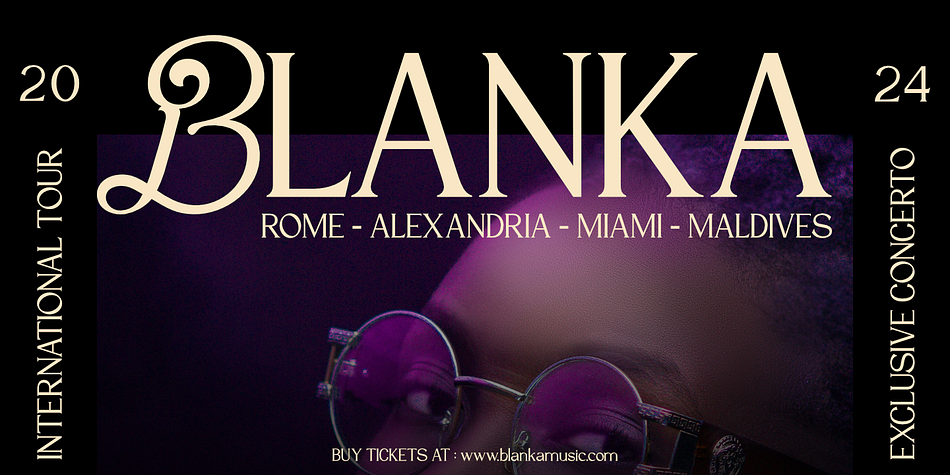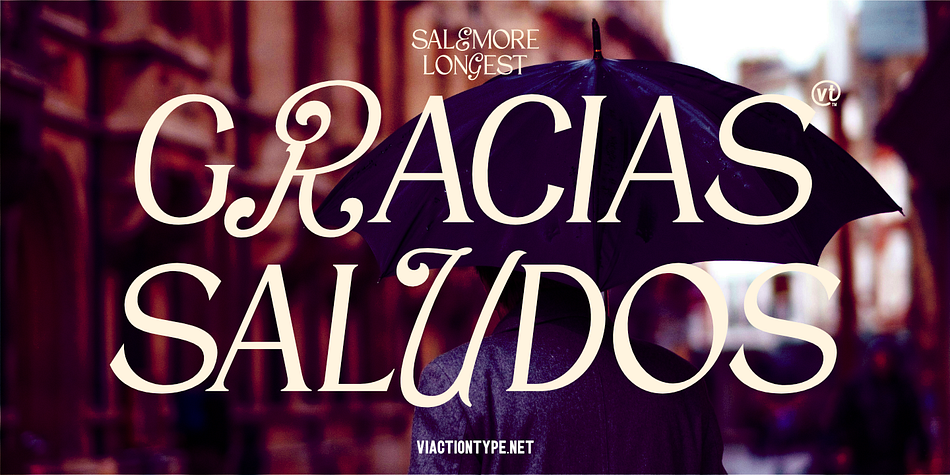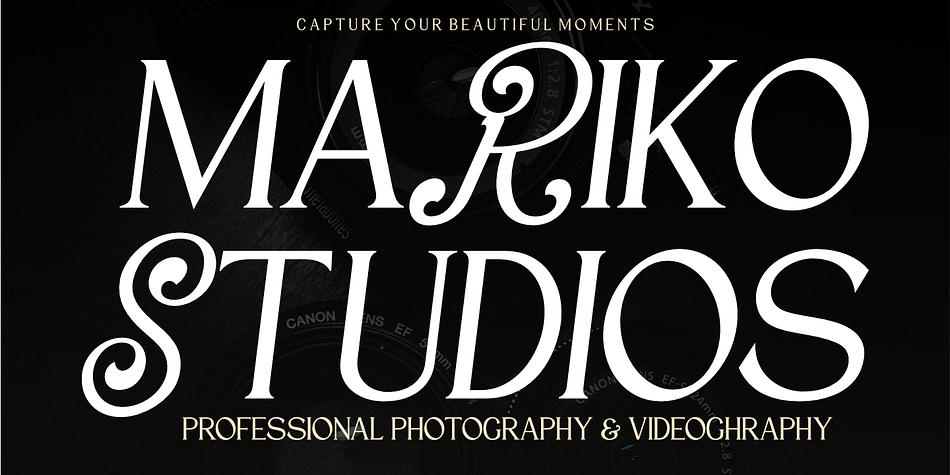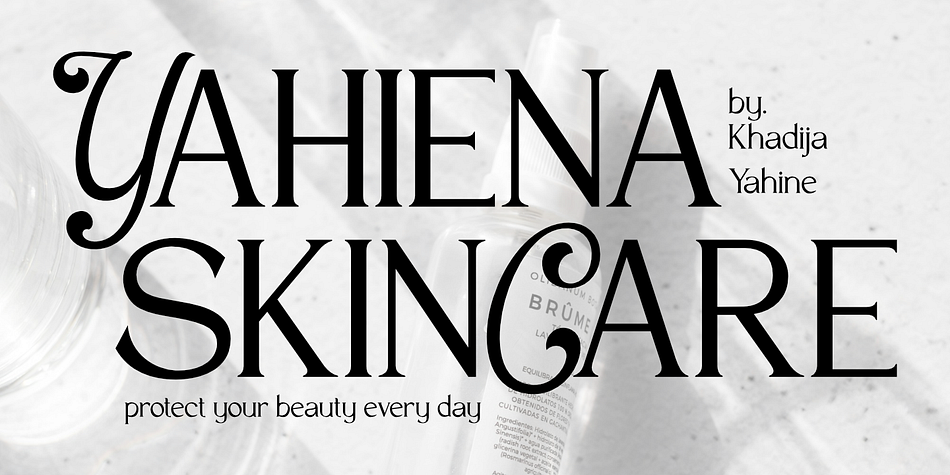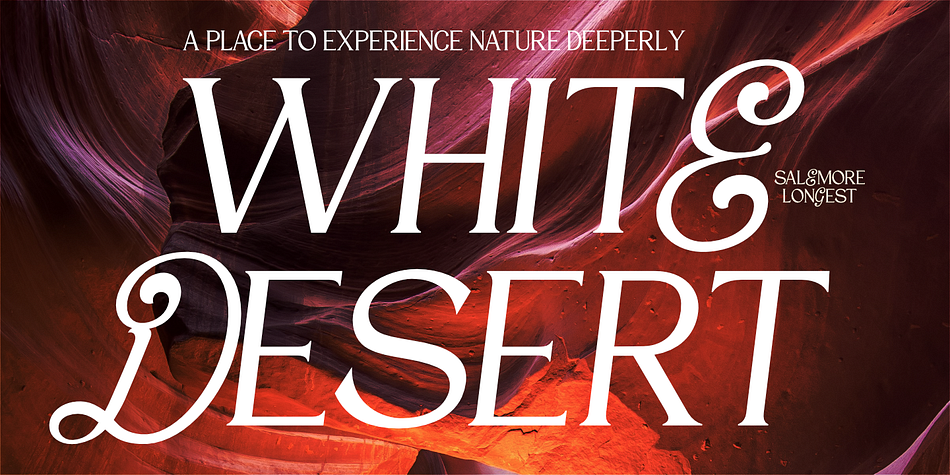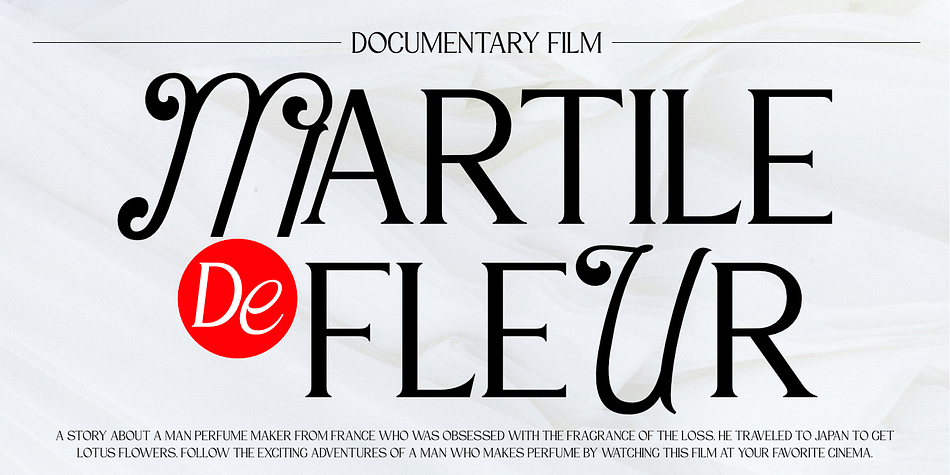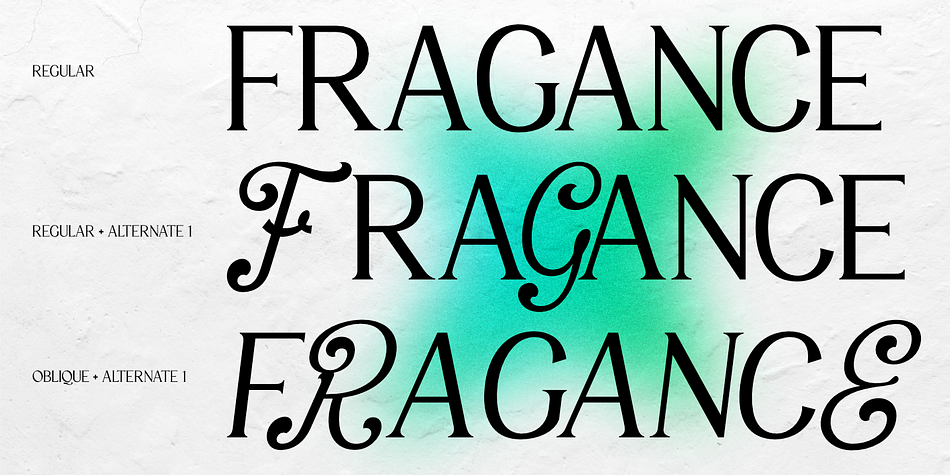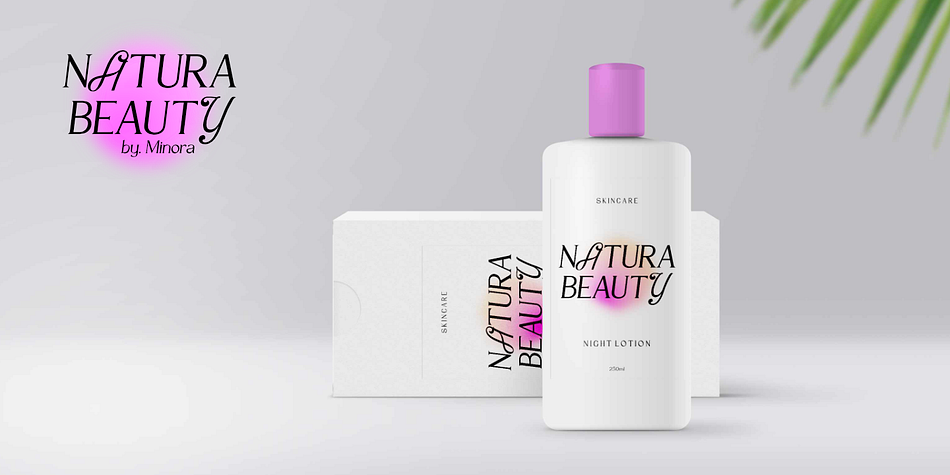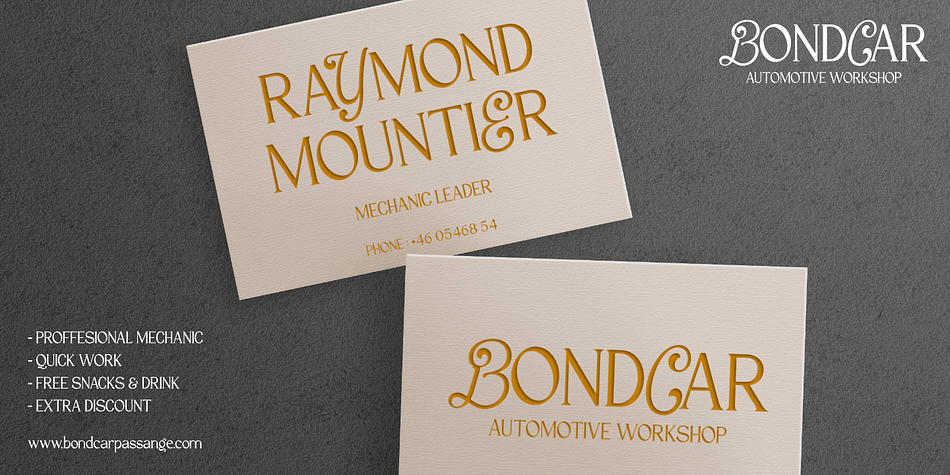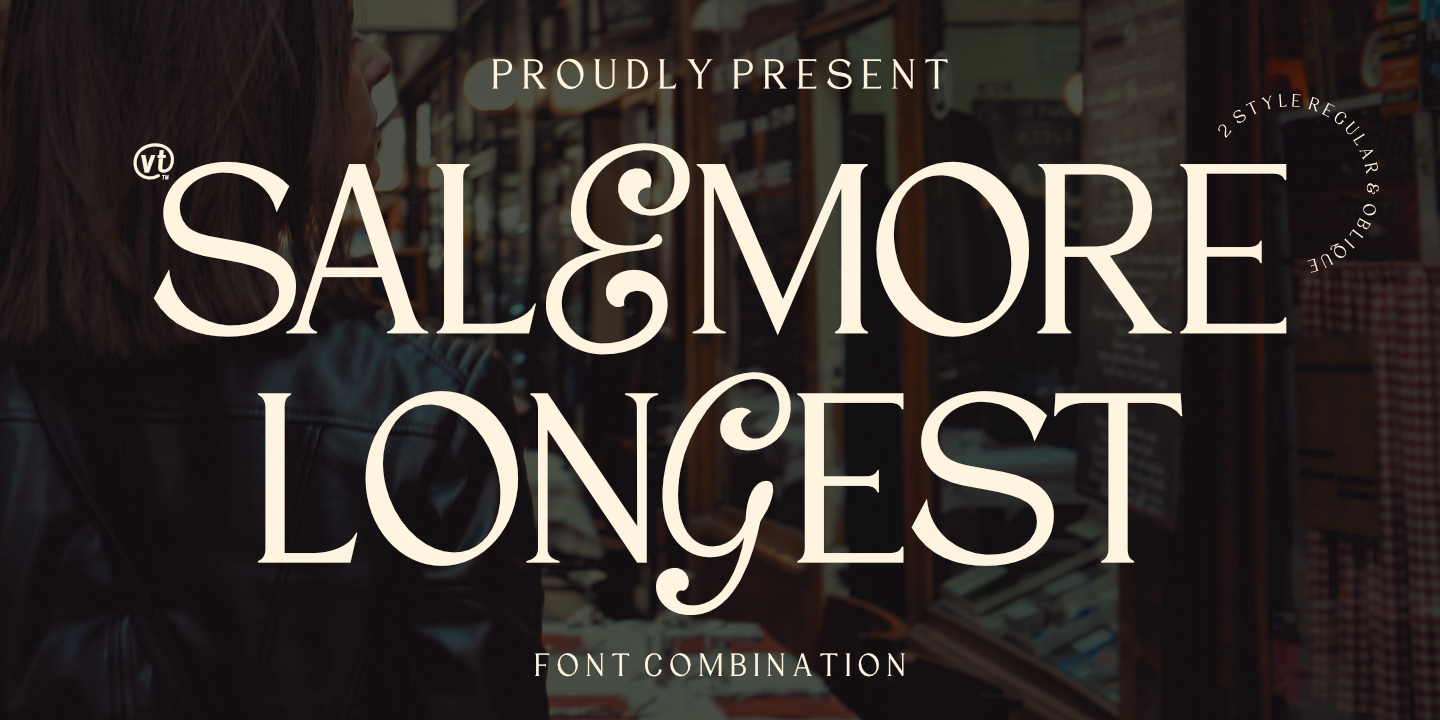
VT Salemore Longest
Designed by Lukman Hdayat, VT Salemore Longest is a serif font family. This typeface has two styles and was published by Viactiontype Studio.
Introducing Salemore Longest Font Combination: Where Elegance Meets Femininity
Elevate your design projects with the enchanting Salemore Longest Font Combination. Crafted meticulously to blend the timeless sophistication of serif with the graceful curves of script, this font duo embodies softness and femininity at its finest.
The Salemore Longest Serif font exudes a sense of refinement with its clean lines and subtle serifs, adding a touch of elegance and structure to your typography. On the other hand, the Salemore Longest Script font brings a delicate charm with its flowing strokes and graceful letterforms, infusing your designs with a distinctly feminine allure.
Whether you’re creating wedding invitations, branding materials, or social media graphics, the Salemore Longest Font Combination offers versatility and beauty to enhance any project. Its seamless integration of serif and script elements allows for endless creative possibilities, while its gentle character appeals effortlessly to a wide audience.